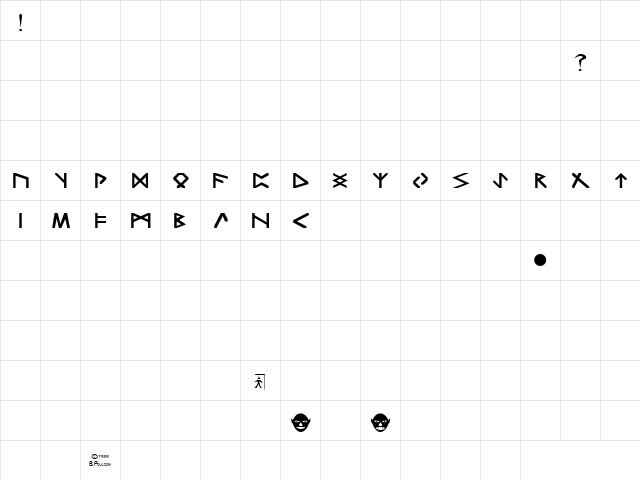
Trondheim Normal
Design Context for Trondheim Typeface
Trondheim is a composed and adaptable typeface that performs quietly and consistently across a wide range of design contexts.